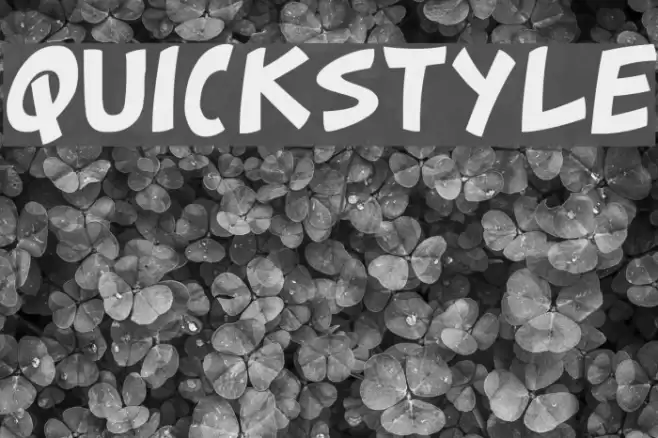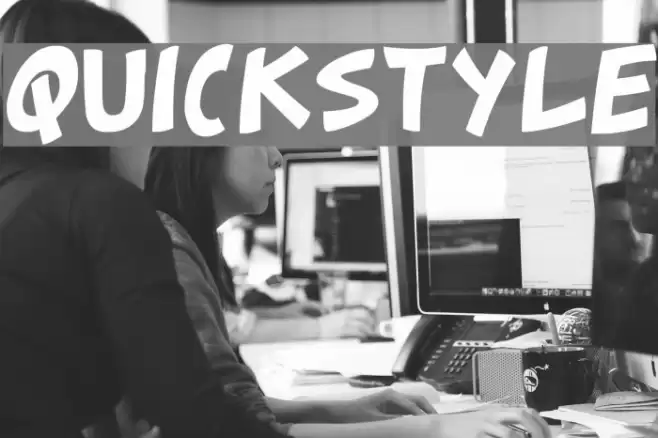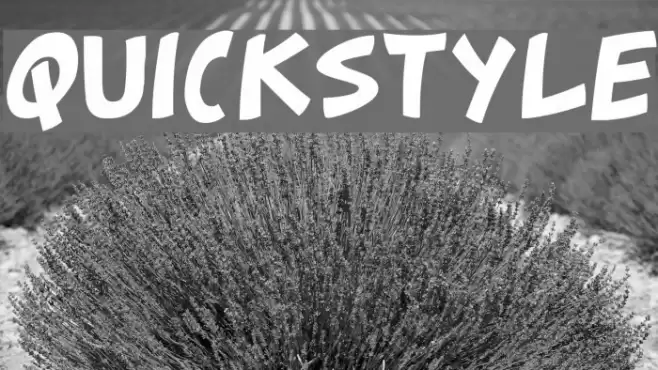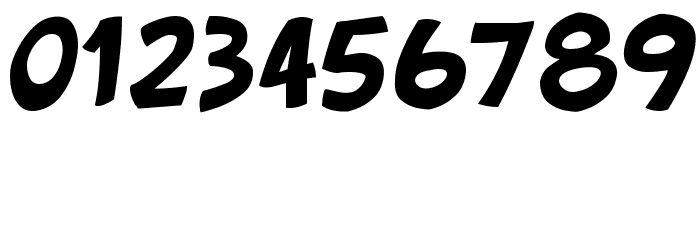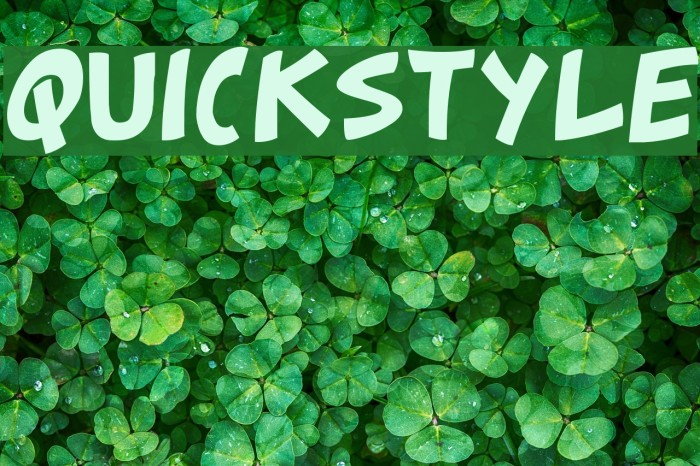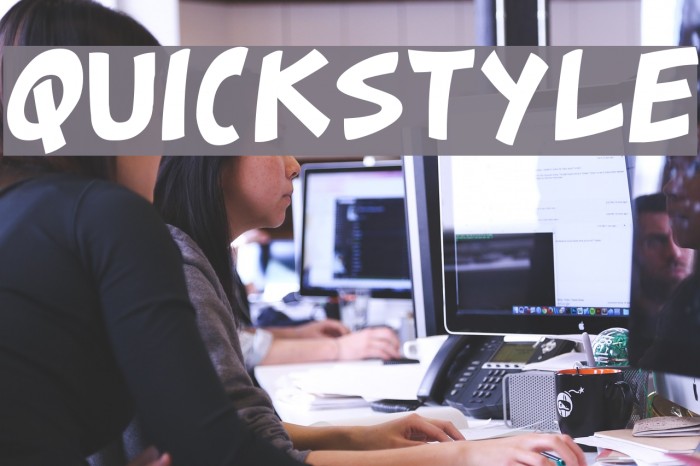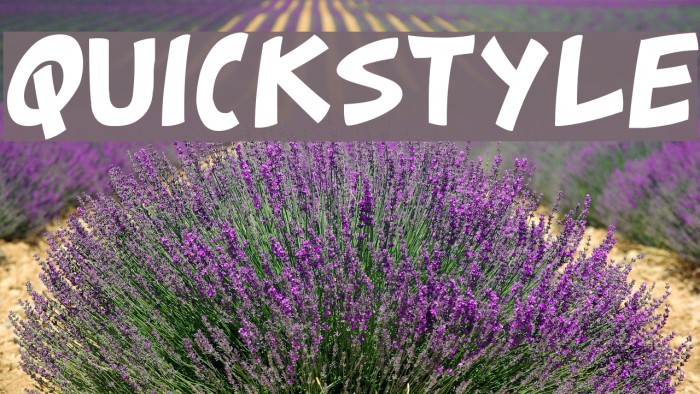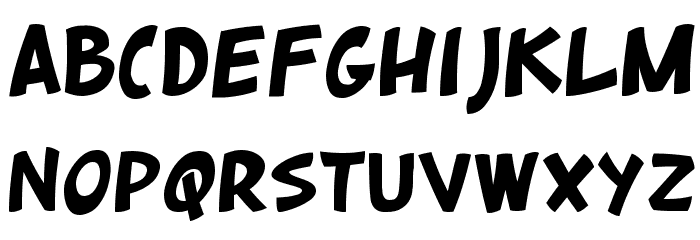
quickstyle Font
quickstyle Description
This font features a bold and playful style with a handwritten appearance, characterized by its thick strokes and slightly slanted letters. The uppercase and lowercase letters maintain a consistent width, giving the font a cohesive look. The numbers are equally bold, ensuring they stand out clearly. The overall design is informal and energetic, making it suitable for creative and fun projects. The font's unique style is enhanced by its slightly irregular shapes, adding a touch of whimsy and personality. The spacing between characters is moderate, allowing for readability while maintaining its distinctive style.
A bold, playful handwritten font with thick strokes and a slightly slanted style from Comic fonts.
- Proposed Projects: Ideal for children's books, comic strips, playful branding, and creative posters.
- Overall Style: Playful